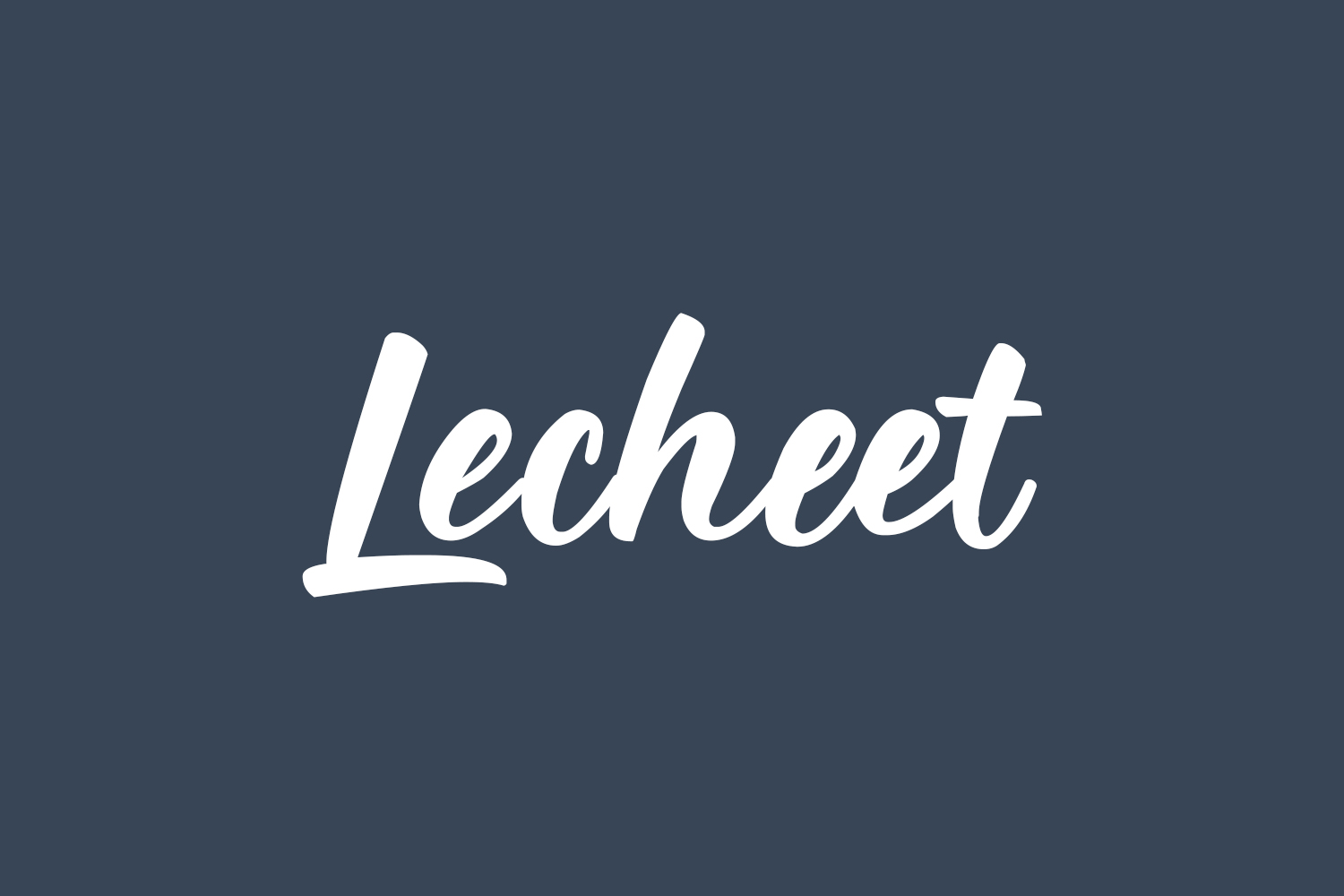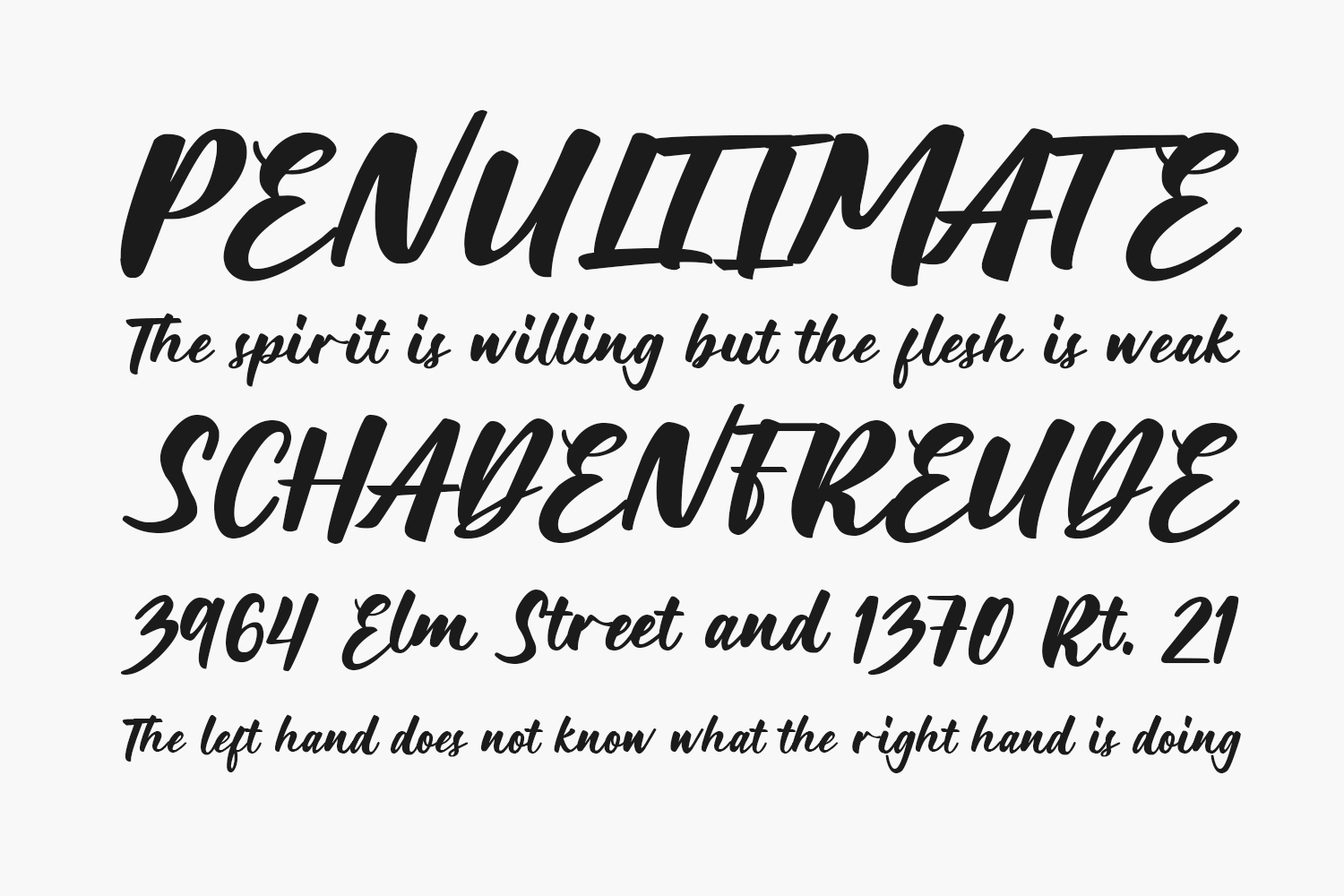
Presenting Lecheet Free Font, a stunning calligraphy typeface featuring gracefully dancing characters along the baseline. Elevate your design projects with a touch of luxury and sophistication using Lecheet. Let its exquisite charm ignite a spark of elegance in your creations. Unleash your creativity and watch your designs come to life with the enchanting allure of Lecheet. Lecheet Free Font is free for personal use only. Please purchase the full version for commercial use.
Designed by Zamjump